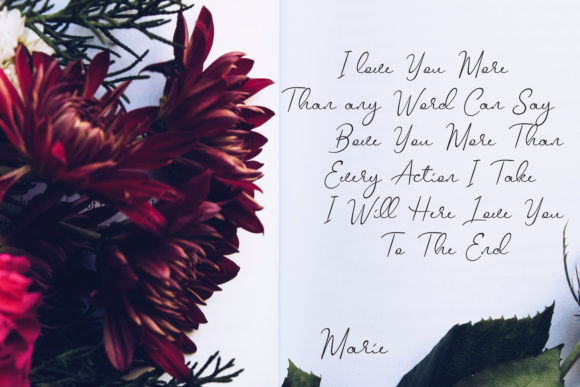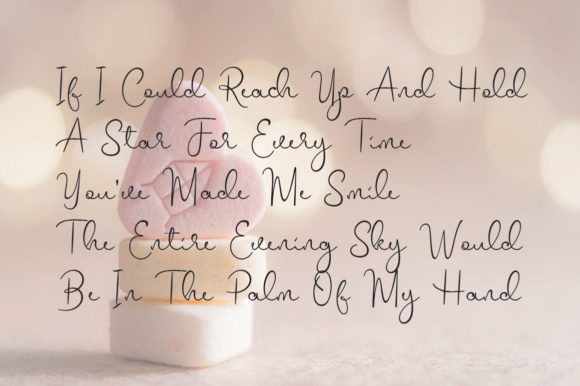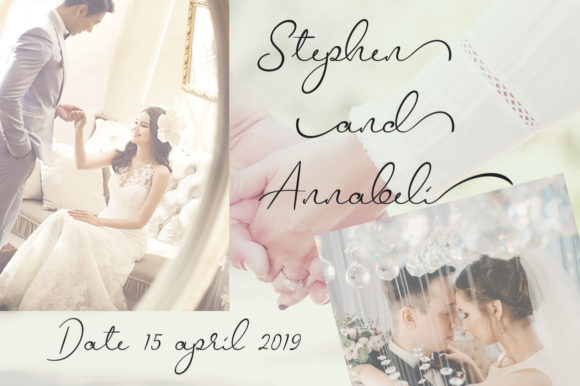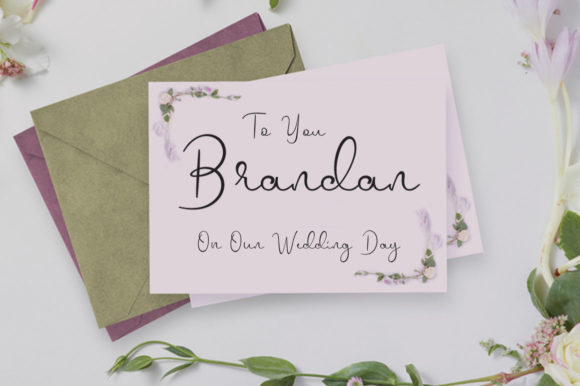
Introduction to Melodie Font
The Melodie is a fresh and modern script font.
It has a handmade calligraphy style and includes amazing decorative characters It can be used for greeting cards, branding material, business cards, quotes, posters, and more.
Key Features of Melodie Font